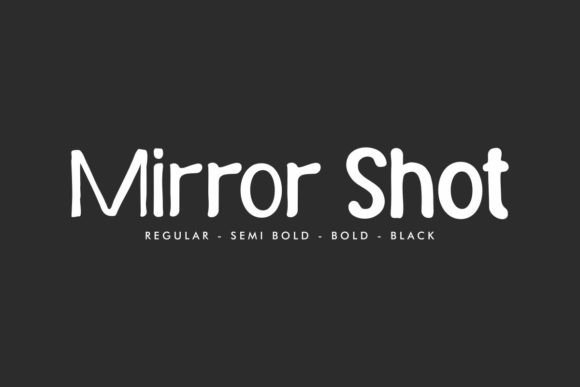
Mirror Shot Font: A Playful Display Font for Your Creative Projects
In the world of typography, fonts play a crucial role in conveying the tone and personality of a brand or project. If you’re looking for a font that exudes playfulness, magic, and whimsy, then Mirror Shot Font is an excellent choice. This article will explore the features, benefits, and uses of Mirror Shot Font, a delightful display font inspired by cute magic and witch movies and games.
What is Mirror Shot Font?
Mirror Shot Font is a modern, playful display font designed to add a touch of magic to your creative projects. With its four different styles – Regular, Semi Bold, Bold, and Black – this font offers versatility and flexibility, making it suitable for various industries and applications.
Font Styles:
- Regular
- Semi Bold
- Bold
- Black
Inspiration and Design
Mirror Shot Font draws inspiration from cute magic and witch movies and games, evoking a sense of wonder and enchantment. The font’s design is characterized by its playful, whimsical feel, making it perfect for projects that require a touch of fantasy and imagination.
Key Design Features:
- Playful and whimsical feel
- Inspired by cute magic and witch movies and games
- Modern and fresh design